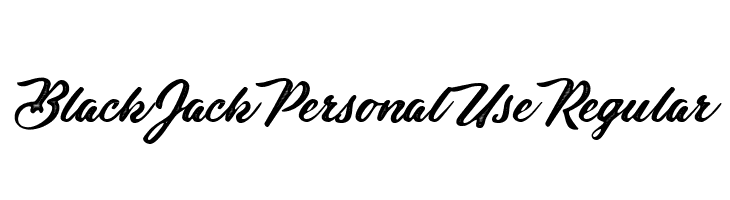
A classic, gothic-inspired font with sharp, angular lines and intricate details.
A delicate, handwritten script font with smooth, flowing lines.
A fluid and elegant handwritten script with thin, connected strokes.
A bold, flowing script font with elegant, interconnected characters.
A bold, playful font with exaggerated curves and thick strokes.
A bold, distressed font with a rugged, textured appearance.
A bold, playful font with rounded edges and a bubble-like appearance.
A bold, playful font with rounded, bubbly shapes and a whimsical style.
A dynamic brush script font with sharp, angular strokes and a textured, hand-painted appearance.
A playful, bold font with a hand-drawn, whimsical style.